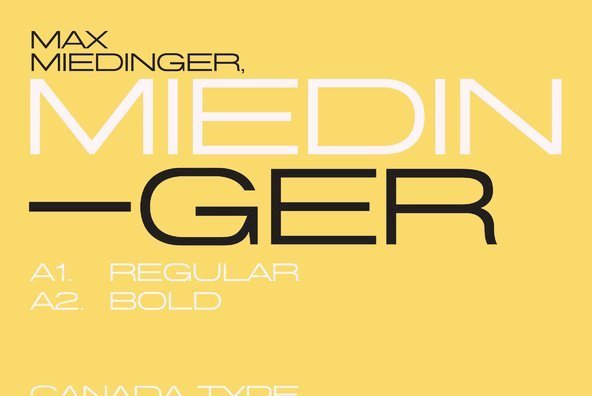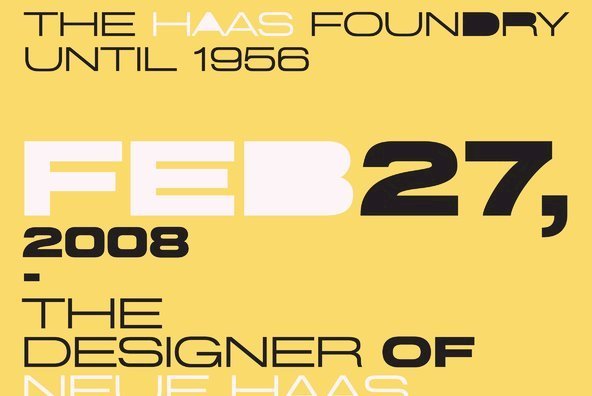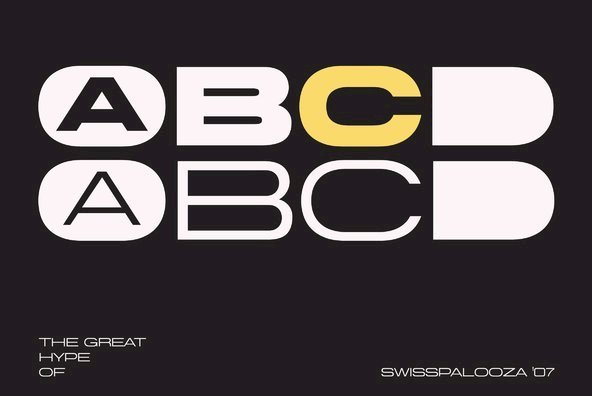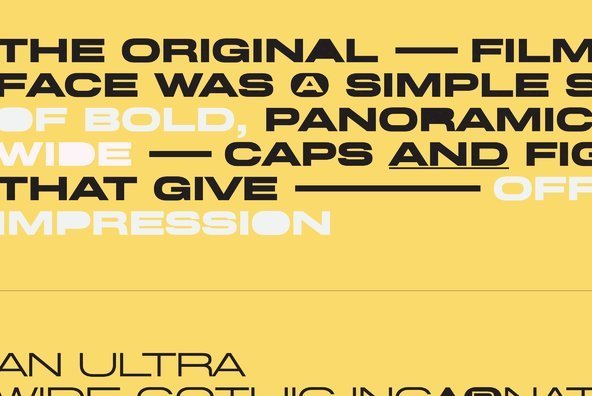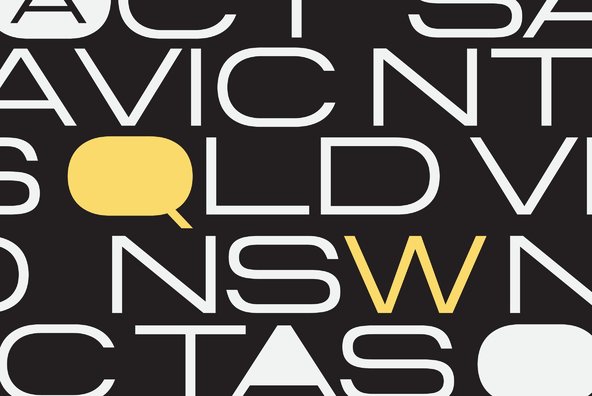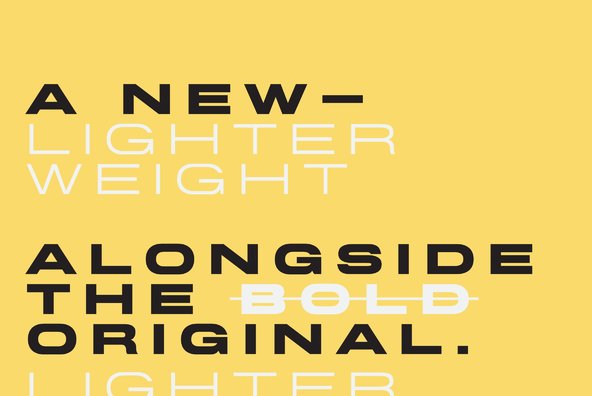
Miedinger
The great hype of Swisspalooza '07 prompted a look at Max Miedinger, the designer of Neue Haas Grotesk (later renamed to Helvetica). Surprisingly, what little biographical information available about Miedinger indicates that he was a typography consultant and type sales rep for the Haas foundry until 1956, after which time he was a freelance graphic designer - rather than the full-time type designer most Helvetica enthusiasts presume him to have been. It was under that freelance capacity that he was commissioned to design the regular and bold weights of Neue Haas Grotesk typeface. His role in designing Helvetica was never really trumpeted until long after the typeface attained global popularity. And, again surprisingly, Miedinger designed two more typefaces that seem to have been lost to the dust of film type history. One is called Pro Arte (1954), a very condensed Playbill-like slab serif that is similar to many of its genre. The other, made in 1964, is much more interesting. Its original name was Horizontal. Here it is, lest it becomes a Haas-been, presented to you in digital form by Canada Type under the name of its original designer, Miedinger, the Helvetica King.
The original film face was a simple set of bold, panoramically wide caps and figures that give off a first impression of being an ultra wide Gothic incarnation of Microgramma. Upon a second look, they are clearly more than that. This face is a quirky, very non-Akzidental take on the vernacular, mostly an exercise in geometric modularity, but also includes some unconventional solutions to typical problems (like thinning the midline strokes across the board to minimize clogging in three-story forms).
This digital version introduces a new lighter weight alongside the bold original. The Miedinger package comes in all popular font formats, and supports Western, Central and Eastern European languages, as well as Esperanto, Maltese, Turkish and Celtic/Welsh. A few counter-less alternates are included in the fonts.